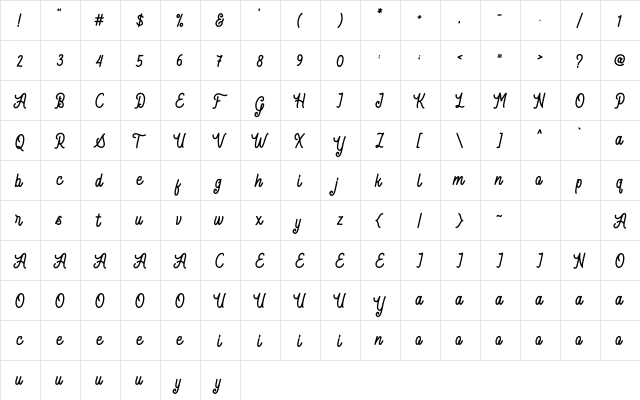
Bartond Script Regular
| Foundry | Tacikworks |
| Designer | Ivan Yahya |
Design Context for Bartond Script Typeface
Bartond Script flows with the natural rhythm of handwritten lettering, making it ideal for designs that call for warmth and personal expression.